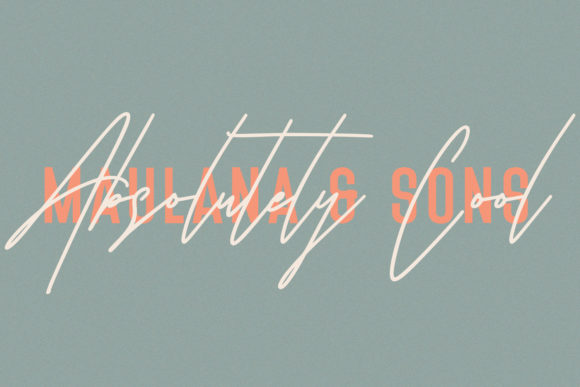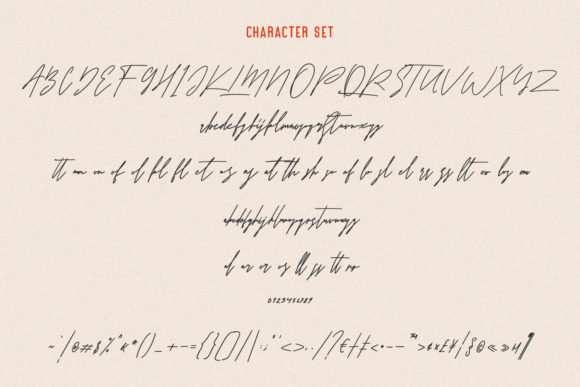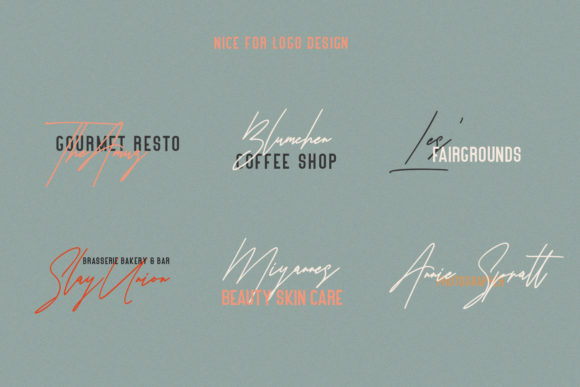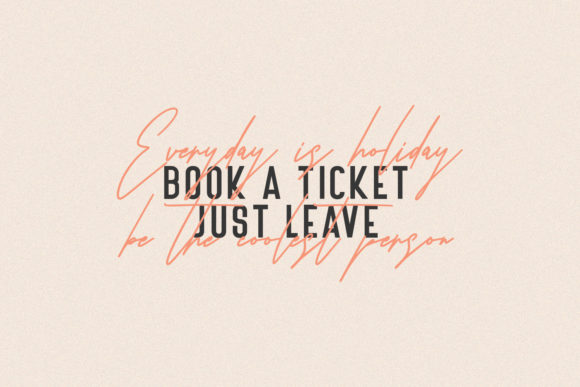
About Astrados Signature Font
Astrados Signature is a fun and incredibly versatile duo font (script and sans serif). It can be used for various purposes such as logos, wedding invitations, headings, t-shirts, letterhead, signage, labels, news, posters, badges and so much more.